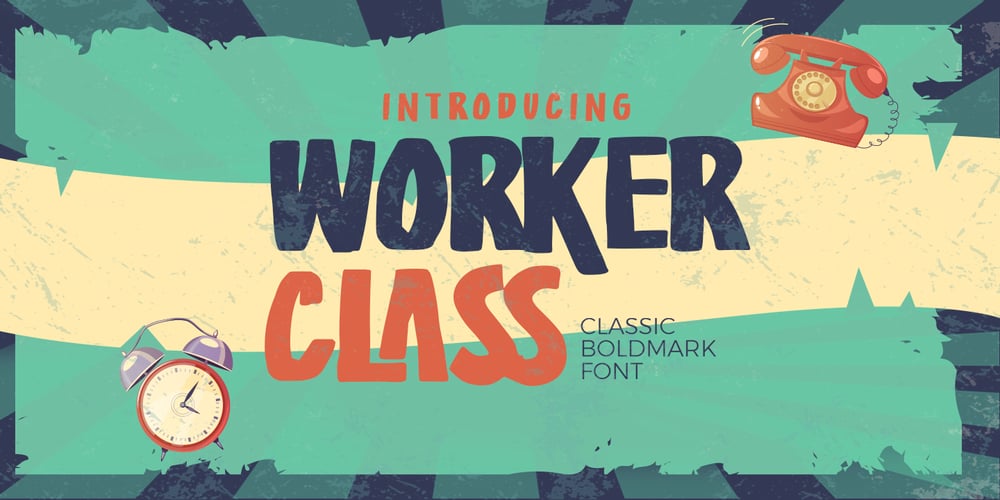
Worker Class
Worker Class font
Worker Class Font Family was designed by Abdul Malik Wisnu, Anang Fibriyanto and published by Gassstype. Worker Class contains 1 styles and family package options. Hello Everyone, introduce our new product Worker Class – Classic Boldmark Font,inspired by the title of the sports poster and We make it very energetically. Worker Class font with strong and challenging nuances. very suitable for the title, typography, Poster, magazines, brochures, packaging,Websites and much more for your design needs, making your designs more modern and professional.